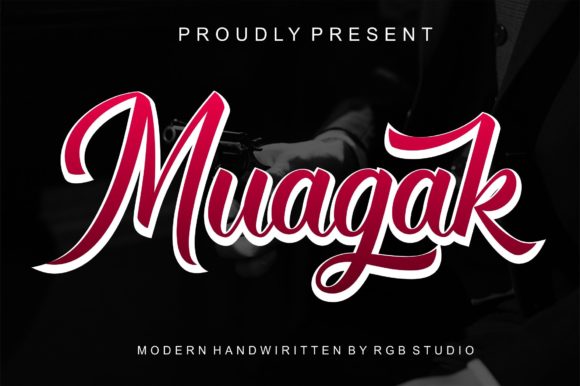
Introducing Muagak - an exquisitely elegant script font, handcrafted with a touch of fluidity and grace. Its bold design is sure to add an expressive flair to your creative projects, making them truly stand out from the ordinary.
Immerse yourself in the intricate details and meticulously crafted strokes of Muagak. This font is not just a collection of characters - it's a work of art, designed to elevate your designs to new heights. Whether you're creating logos, t-shirts, branding, or any other visual masterpiece, Muagak will add a touch of youthful passion and energy.
With Muagak, your creations will captivate audiences with their unique charm and personality. Its versatility knows no bounds, allowing you to effortlessly enhance any project, no matter the topic or theme. Whether you're designing for an art gallery, a fashion brand, or a personal project, Muagak will seamlessly blend in and elevate your work.
But what truly sets Muagak apart is its PUA encoding, a feature that grants you effortless access to all the glyphs and swashes. Unleash your creativity and explore endless possibilities, creating stunning visuals that will leave your audience in awe.
Muagak is more than just a font - it's an experience. A journey into the realm of creativity, where your imagination knows no limits. Embrace the elegance and passion of Muagak, and let your designs bloom with newfound beauty and expression.